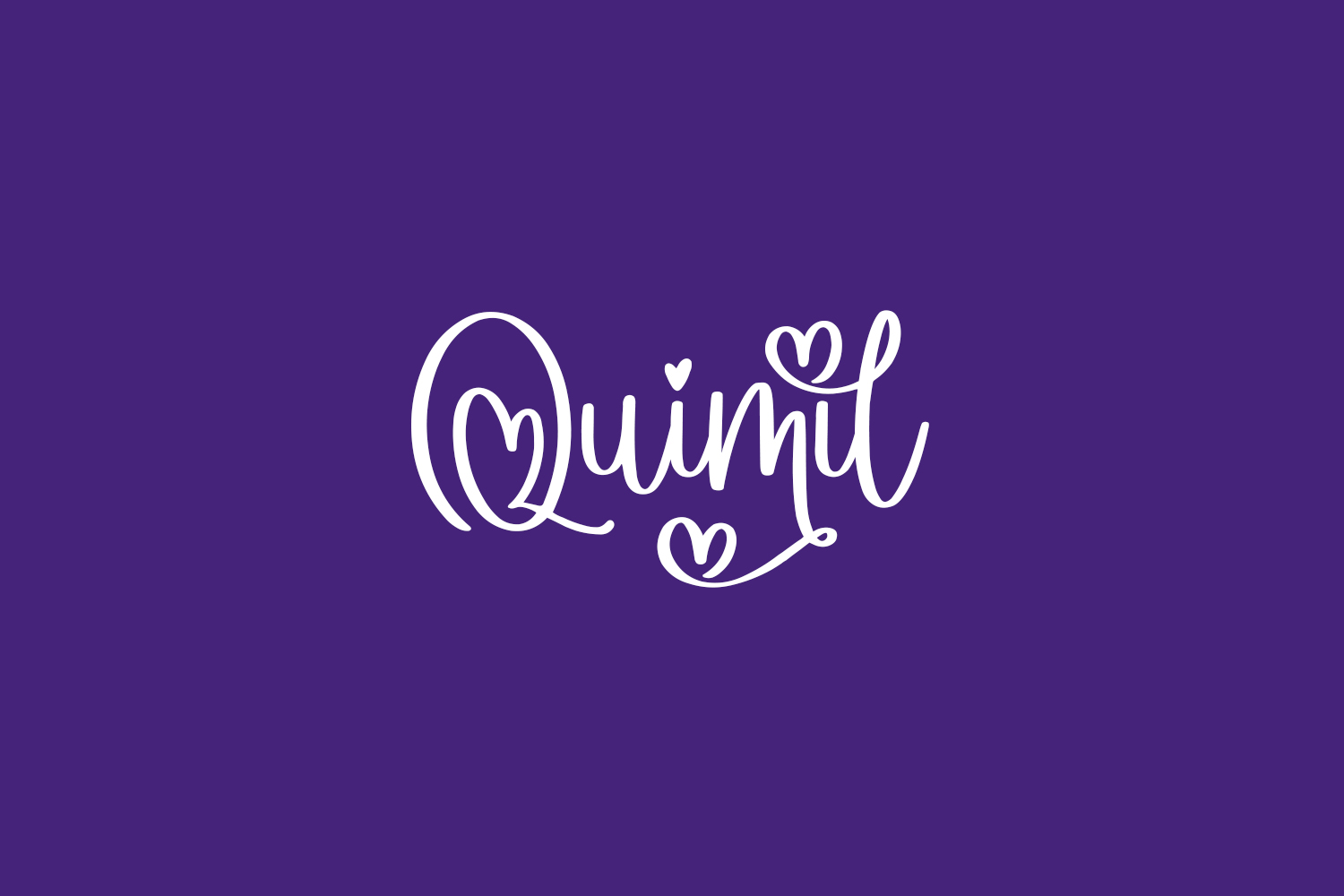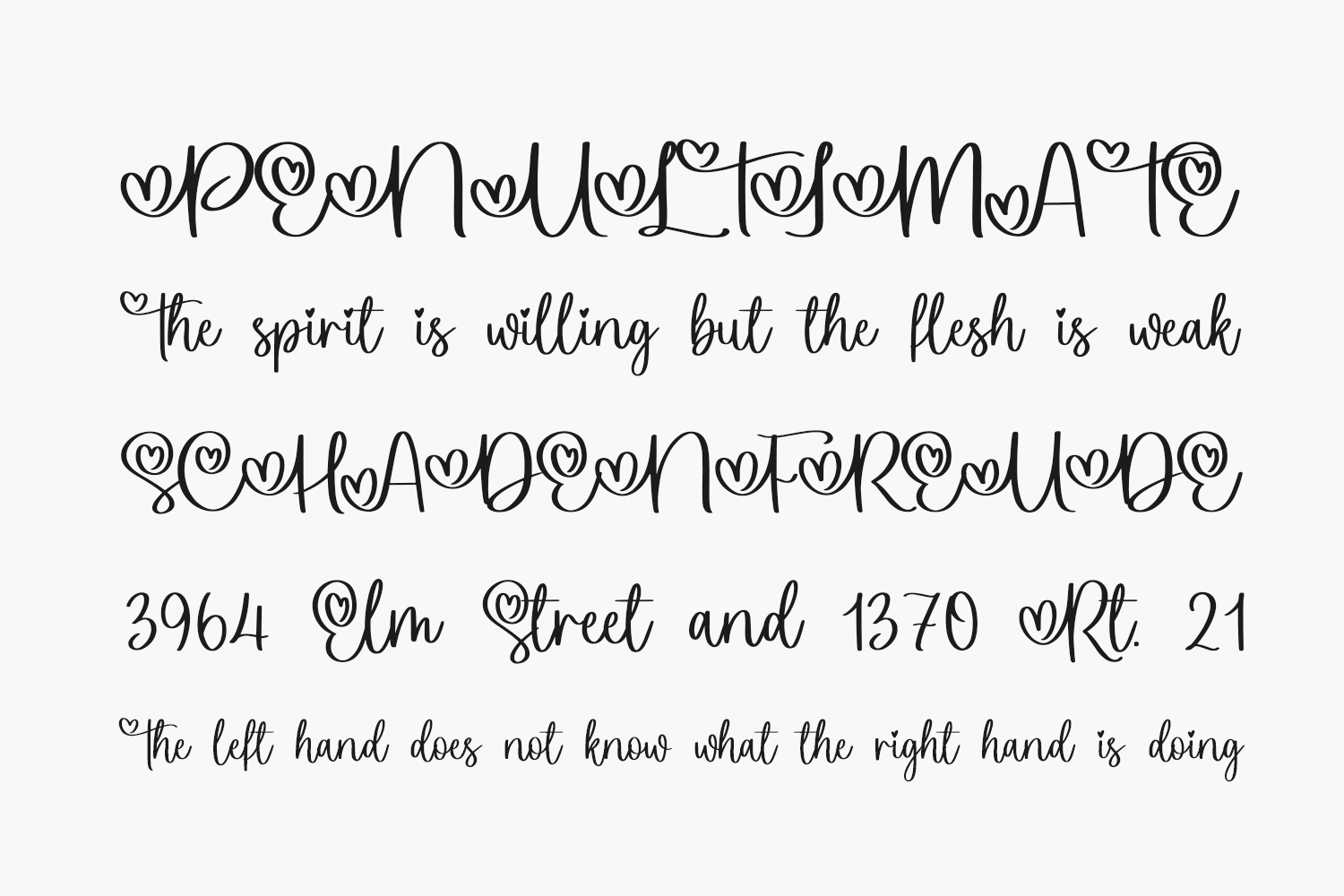
Quimil Free Font is a distinct graceful script font. Fall for its ravishing style and use it to create gorgeous designs. This font is PUA encoded which means you can access all glyphs and swashes with ease. Quimil Free Font was designed by Allouse Studio and is free for personal use only. Please purchase the full version for commercial use.